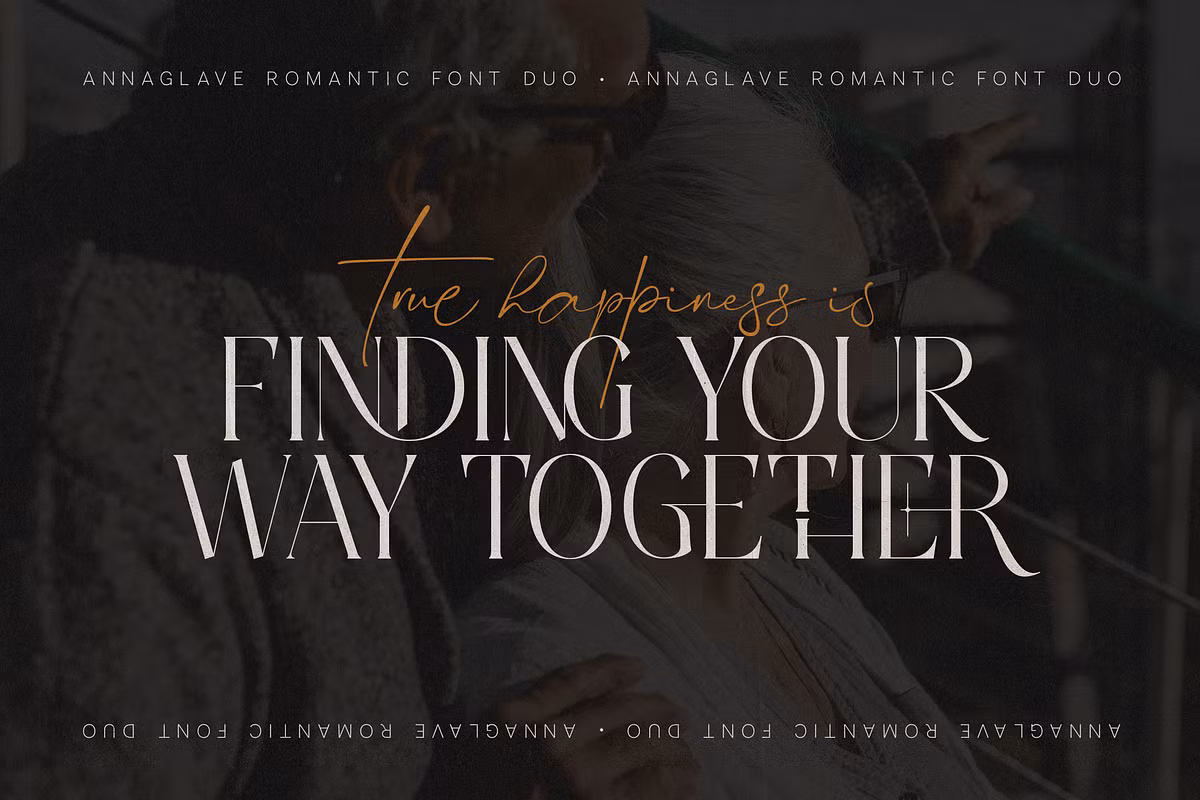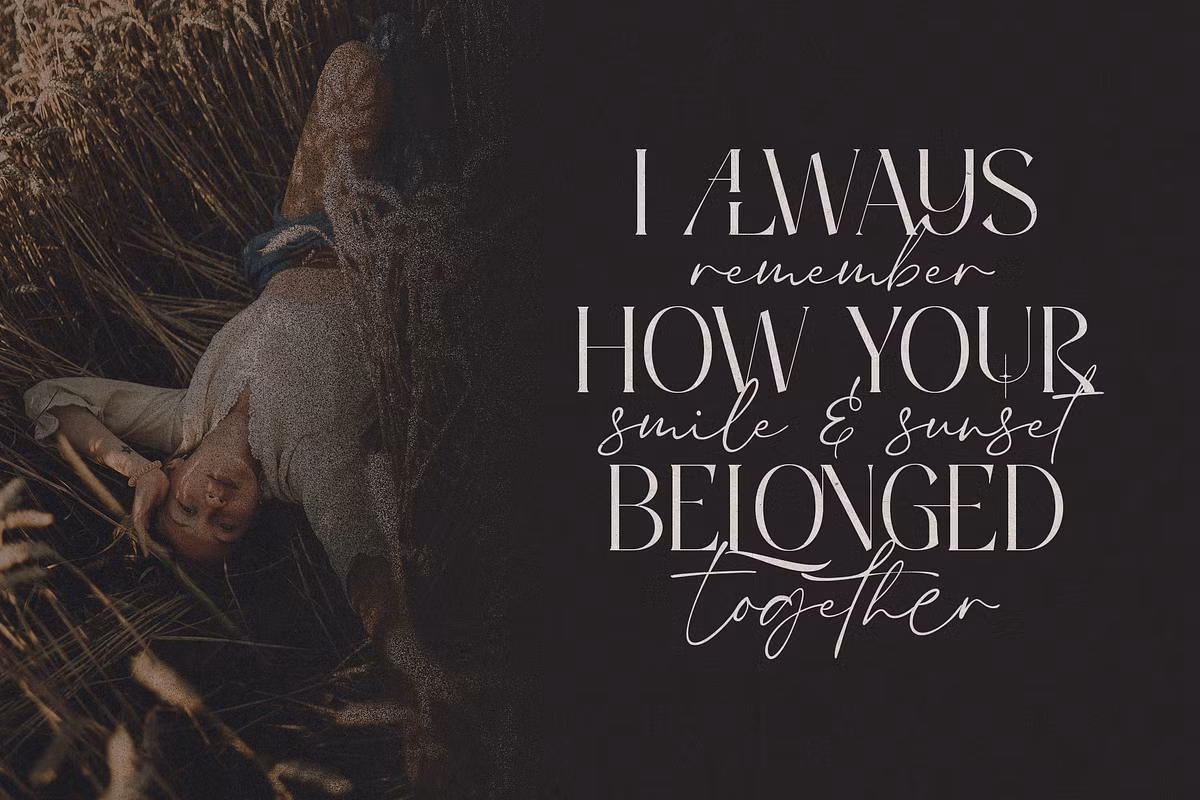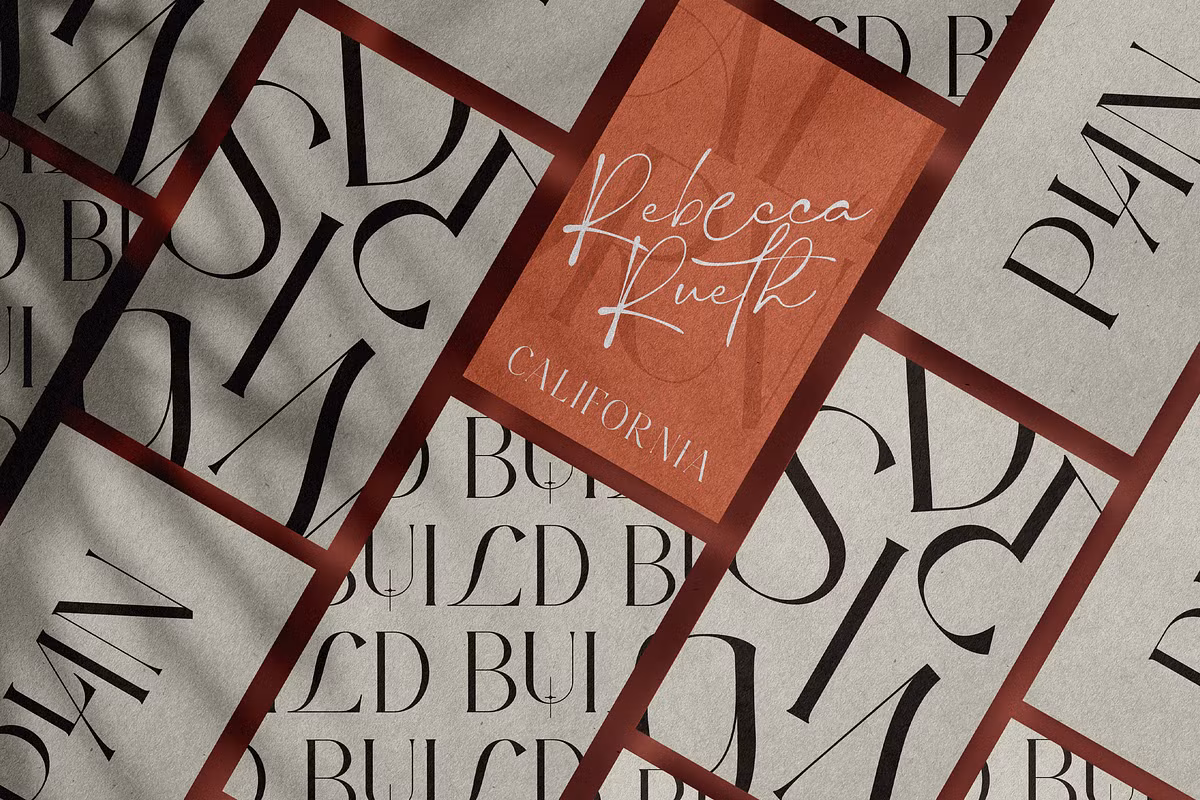
Introduction to Anna Glave
Meet Anna Glave, a beautiful font pair that brings together a sleek, modern serif and a lovely handwritten script. They work perfectly together to create a sense of elegance and timelessness in your designs. If you’re a graphic designer, brand expert, or just someone who loves to create, Anna Glave is a great choice to add a touch of luxury and nostalgia to your work.
It’s perfect for making your brand look high-end and sophisticated. With Anna Glave, you can create designs that are not only visually stunning but also emotionally engaging. The combination of the modern serif and the handwritten script gives your projects a unique and refined look that’s sure to impress.
Whether you’re working on a new brand identity, a website, or a social media campaign, Anna Glave is a great font duo to have in your toolkit. It’s versatile, elegant, and sure to elevate your designs to the next level.
Design Style of Anna Glave
Anna Glave’s design is inspired by traditional editorial typography and beautiful calligraphy. The serif font has sharp lines, stylish connections between letters, and a modern look that feels high-end. It’s balanced perfectly with a script font that adds a personal touch with its smooth curves and fancy flourishes.
This combination creates a unique and stylish look that’s perfect for making a statement. The serif font’s classic feel is elevated by its modern proportions, while the script font’s warmth and personality shine through in its expressive details.
Overall, Anna Glave’s design philosophy is all about blending traditional and modern elements to create something truly special. In typography, the balance between structure and expression is crucial. Anna Glave achieves this balance, making it ideal for both bold headlines and intimate handwritten accents.
Character Sets and Features
When it comes to character sets, Anna Glave offers a variety of features that enhance its versatility. The serif font includes:
- High-contrast modern design
- Stylish ligatures that enhance readability and aesthetics
- Balanced spacing that ensures clarity in text
The script font complements these features by providing:
- Fluid strokes that mimic natural handwriting
- Multiple stylistic sets that allow for customization
- Expressive swashes that add flair to your typography
Use Cases for Anna Glave
With its elegant aesthetic and versatile features, Anna Glave is perfect for a variety of applications:
- Luxury Branding & Logos: The refined look of Anna Glave makes it an excellent choice for high-end brands wanting to convey a sense of sophistication.
- Wedding Invitations & Stationery: The romantic script font is ideal for creating beautiful wedding invitations and elegant stationery that captures heartfelt emotions.
- Fashion Magazines: Fashion magazines and editorials really benefit from using modern serif fonts – they make the whole layout look more stylish and grab your attention.
- Beauty, Lifestyle & Boutique Brands: Brands in the beauty and lifestyle sectors can use Anna Glave to create a distinctive identity that resonates with their target audience.
- Packaging Design: The combination of serif and script fonts can elevate packaging design, making products stand out on the shelves.
- Quotes, Posters & Social Media Graphics: Use Anna Glave to create compelling quotes and graphics that are visually engaging and shareable.
- Website Headers & Hero Sections: The dramatic presence of Anna Glave can enhance website headers and hero sections, drawing attention and creating a lasting impression.
To maximize the visual impact of your designs, consider pairing Anna Glave with complementary typefaces. Here are a few suggestions:
- Sans-Serif Fonts: Pair Anna Glave’s serif font with a clean sans-serif typeface like Montserrat or Open Sans for a modern and balanced look.
- Fancy Script Fonts: To give your design some extra style, think about combining the script font Anna Glave with other fancy script fonts like Great Vibes or Dancing Script.
- Display Fonts: Use a bold display font to create striking headlines alongside Anna Glave’s serif font for a dynamic contrast.
When pairing fonts, always keep hierarchy and readability in mind. The aim is to create a harmonious balance that draws the viewer’s eye and enhances the overall message of your design.
This makes it a must-have for designers who want to create classic, timeless typography. Using Anna Glave in your next project can add a touch of elegance and sophistication, taking your designs to a whole new level. Whether you’re working on something fancy or intimate, Anna Glave is a great choice.
Its unique blend of modern and handwritten elements will make your work stand out. So, consider giving Anna Glave a try and see how it can enhance your designs. With its versatility and charm, it’s sure to be a valuable addition to your design toolkit.